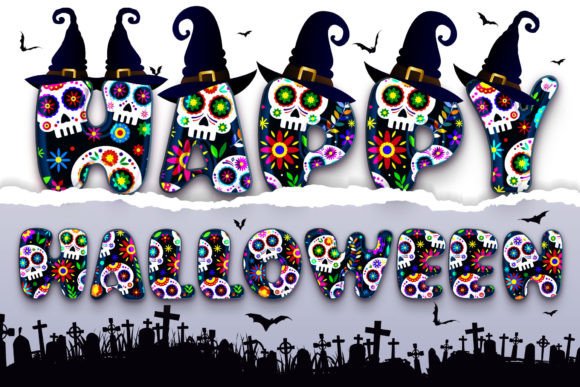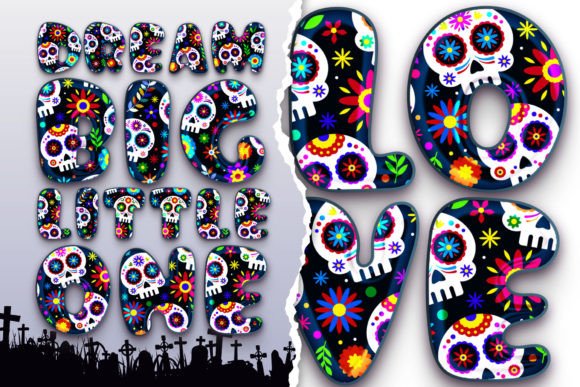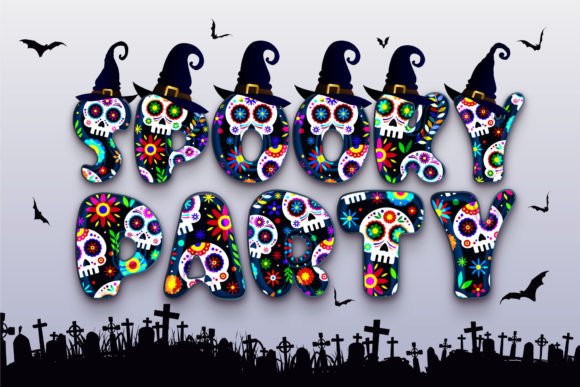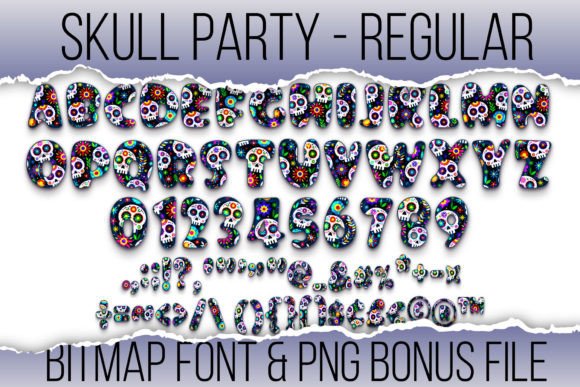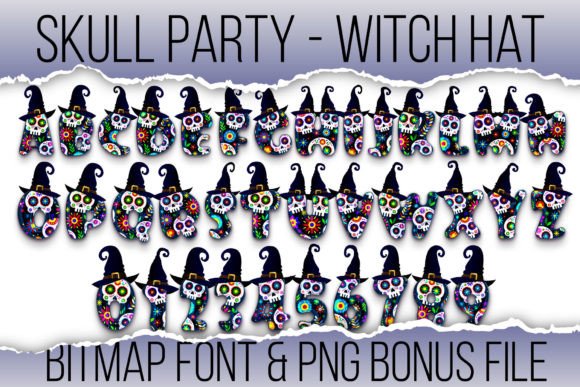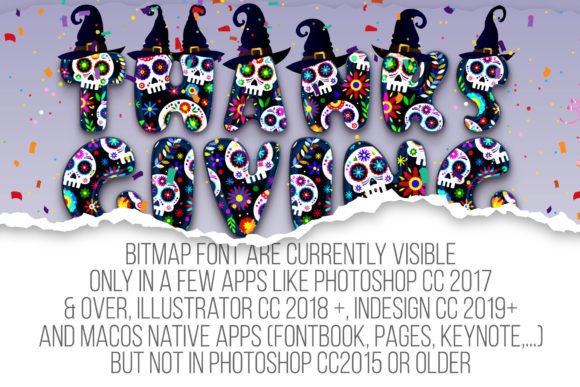
Introduction to Skull Party Font
Skull Party is a fun color font with cute skulls and witch hats.
It embodies playfulness and authenticity and is the perfect choice for any Halloween project Note.
Key Features of Skull Party Font
Why Choose Skull Party Font?
Skull Party Font offers exceptional quality and versatility, making it a valuable addition to your design toolkit. Whether you’re creating for personal projects or commercial use, Skull Party Font delivers professional results.